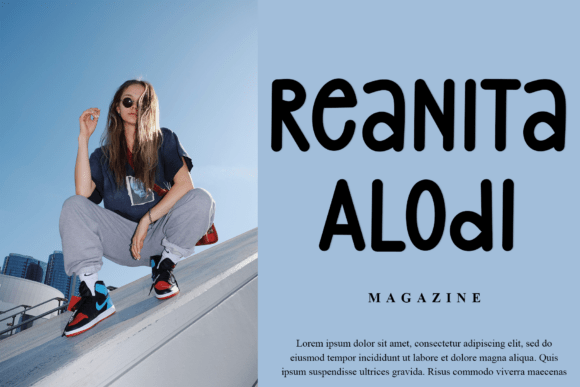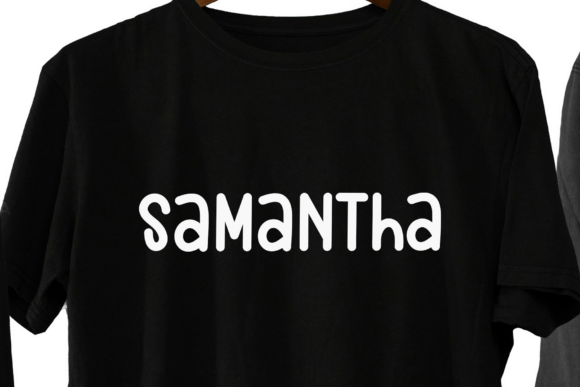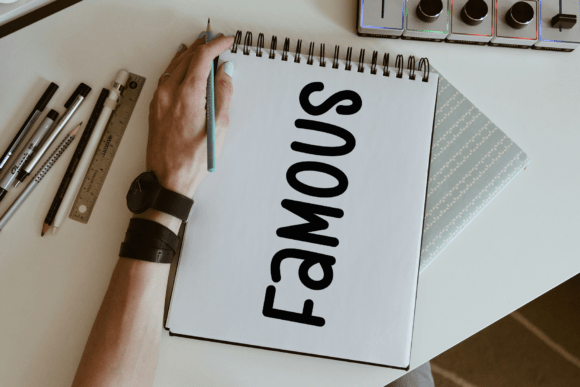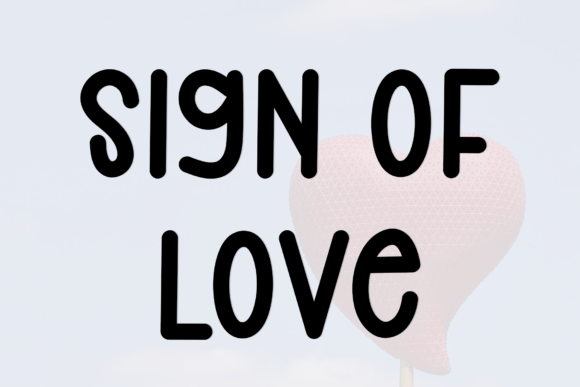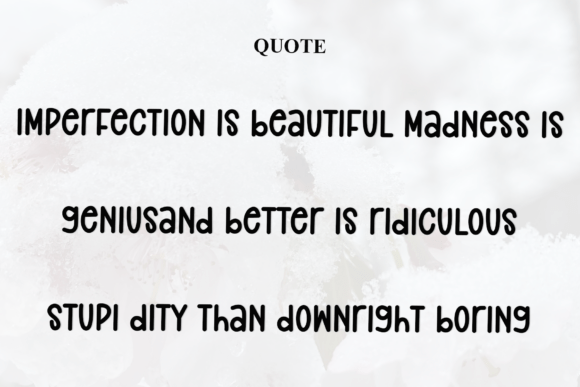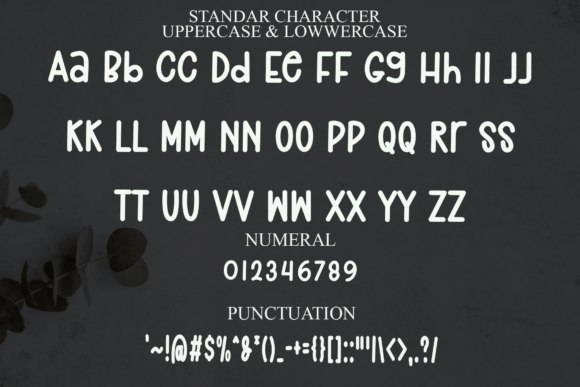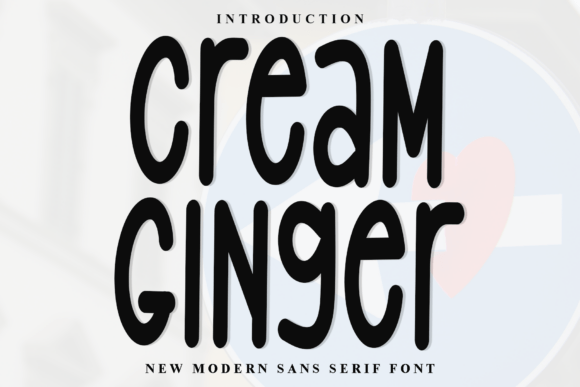
Cream Ginger Font: The Perfect Choice for Creative and Friendly Designs
Are you looking for a font that can add a touch of warmth and friendliness to your designs? Look no further than Cream Ginger Font! This casual and creative font is perfect for personal projects, invitations, social media graphics, and more. In this article, we’ll take a closer look at the features and benefits of Cream Ginger Font, and explore how it can elevate your designs to the next level.
The Characteristics of Cream Ginger Font
Cream Ginger Font is a hand-drawn font that boasts round, playful strokes that create a relaxed and approachable feel. Its charming aesthetic adds a fun and unique touch to any design, making it perfect for designers and crafters who want to create eye-catching and engaging content. The font’s casual and creative vibe makes it ideal for a wide range of projects, from personal invitations to social media graphics and more.
Key Features of Cream Ginger Font
- Hand-Drawn Aesthetic: The font’s hand-drawn aesthetic gives it a unique and charming feel that’s perfect for creating friendly and approachable designs.
- Playful Strokes: The font’s round, playful strokes create a relaxed and casual vibe that’s perfect for personal projects and social media graphics.
Benefits of Using Cream Ginger Font
So why choose Cream Ginger Font for your designs? Here are just a few benefits of using this amazing font:
- Easily Readable: Cream Ginger Font is easy to read, even at small sizes, making it perfect for use in a wide range of designs.
- Versatile: The font’s casual and creative vibe makes it suitable for a wide range of projects, from personal invitations to social media graphics and more.
How to Use Cream Ginger Font in Your Designs
Using Cream Ginger Font in your designs is easy! Here are a few tips to get you started:
- Pair it with Other Fonts: Cream Ginger Font pairs well with other fonts, so feel free to experiment with different combinations to find the perfect look for your design.
- Use it for Headings and Titles: The font’s playful strokes and charming aesthetic make it perfect for use in headings and titles.
- Add it to Your Social Media Graphics: Cream Ginger Font is perfect for social media graphics, where its friendly and approachable vibe can help you connect with your audience.
Tips and Tricks for Getting the Most Out of Cream Ginger Font
Here are a few more tips and tricks for getting the most out of Cream Ginger Font:
- Experiment with Colors: The font’s creamy color makes it perfect for use with bright and bold colors, so don’t be afraid to experiment and find the perfect combination for your design.
- Use it for DIY Projects: Cream Ginger Font is perfect for DIY projects, such as crafting and scrapbooking, where its friendly and approachable vibe can add a personal touch.
- Make it Your Own: Don’t be afraid to make Cream Ginger Font your own by adding your own personal touches and customizations.